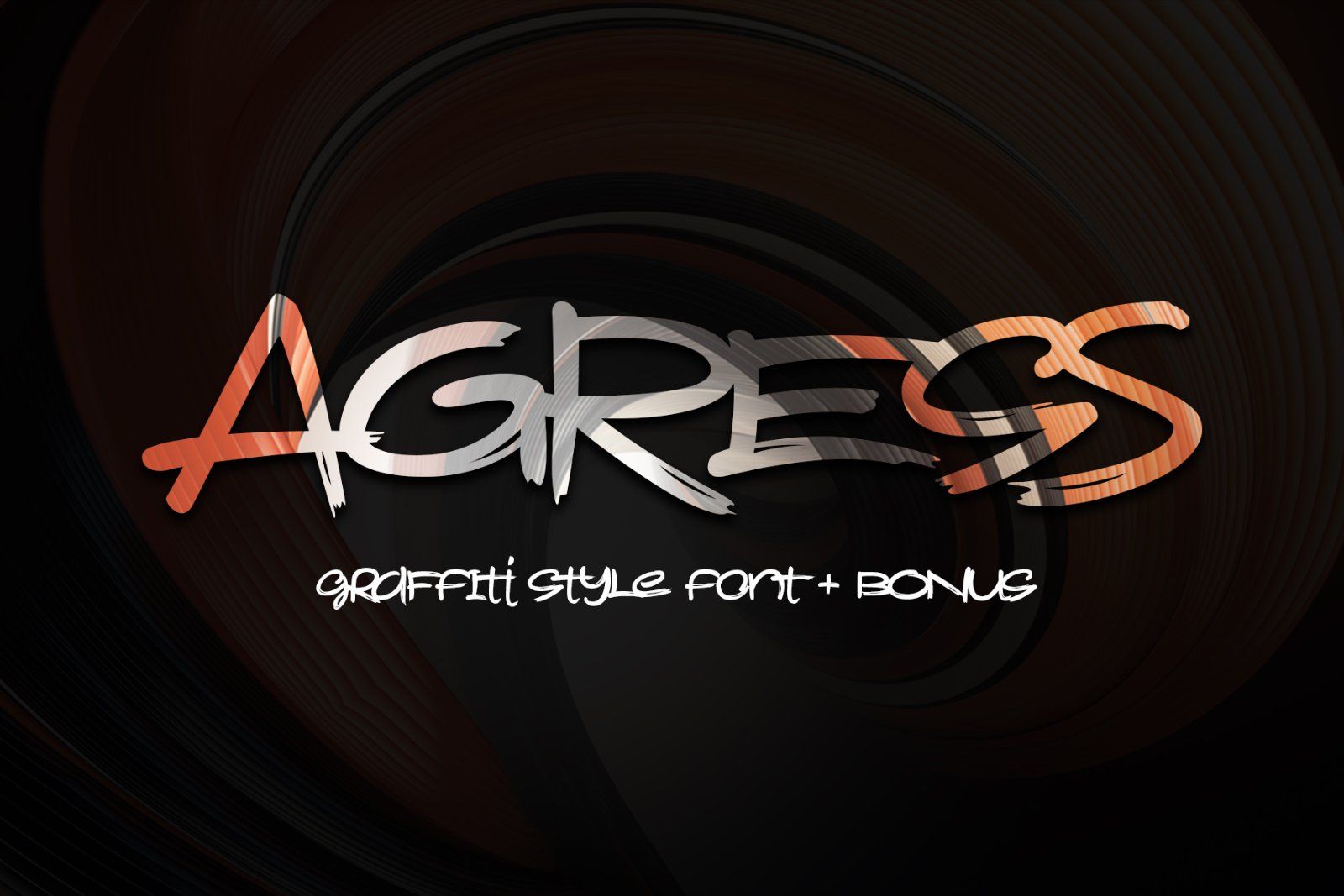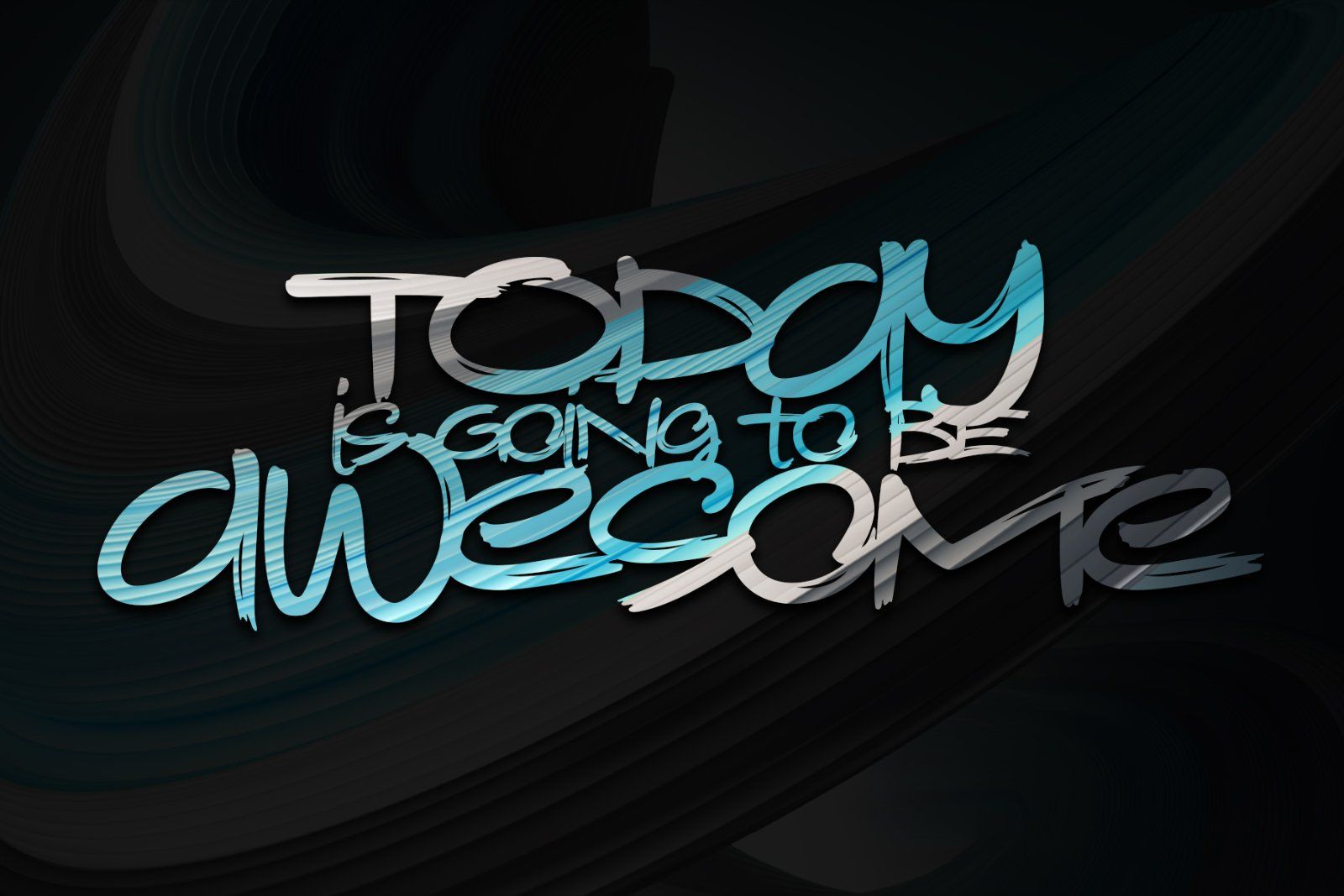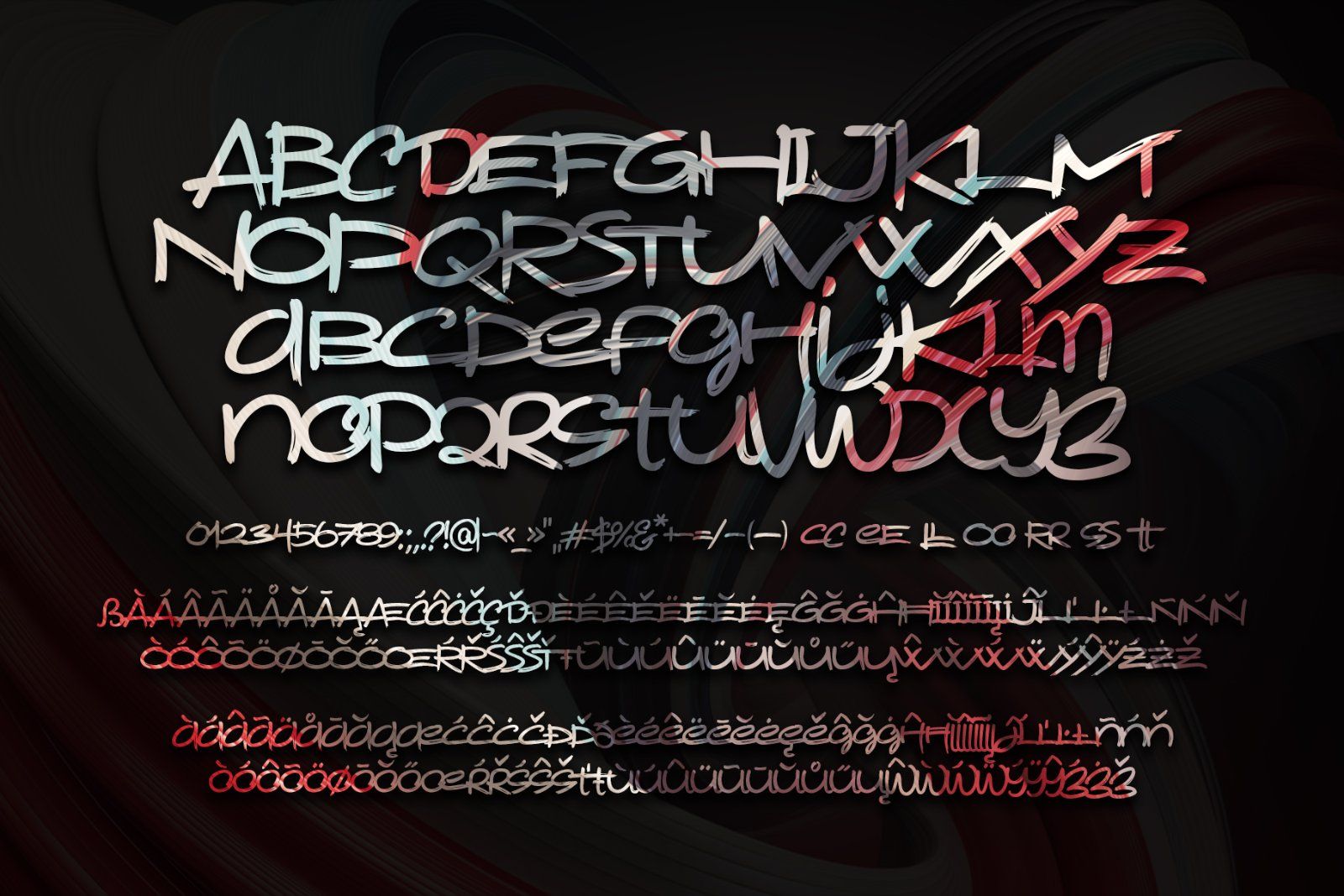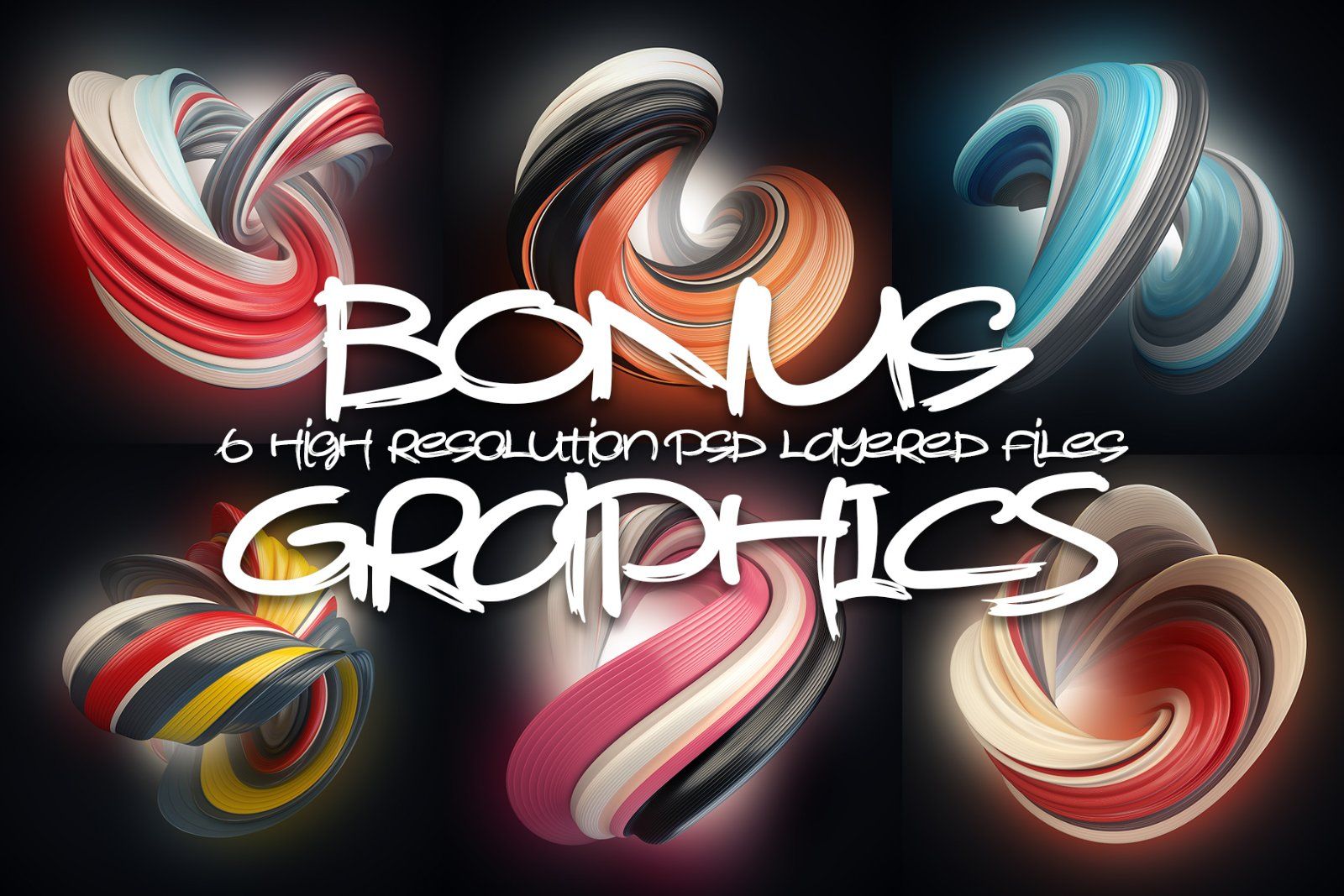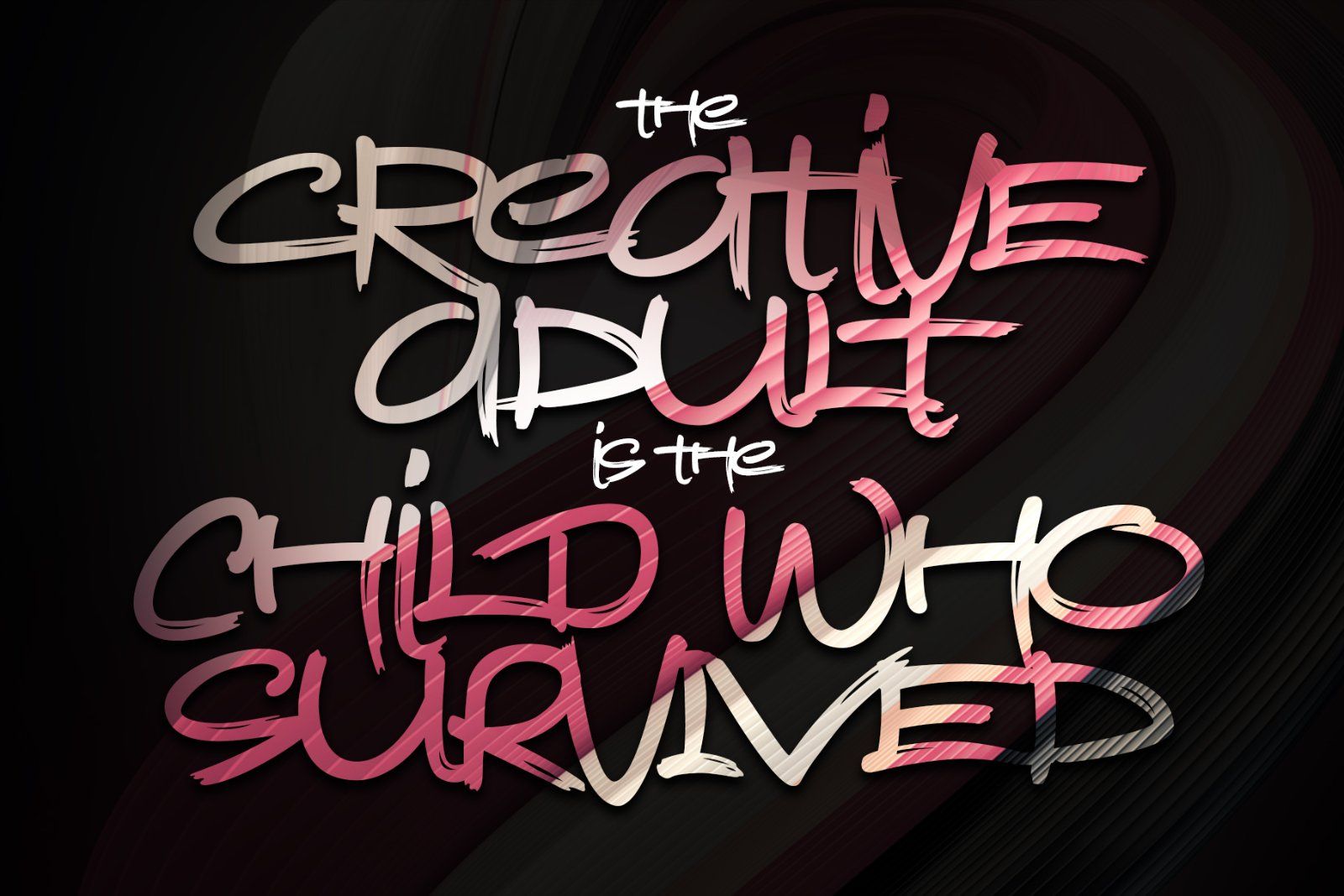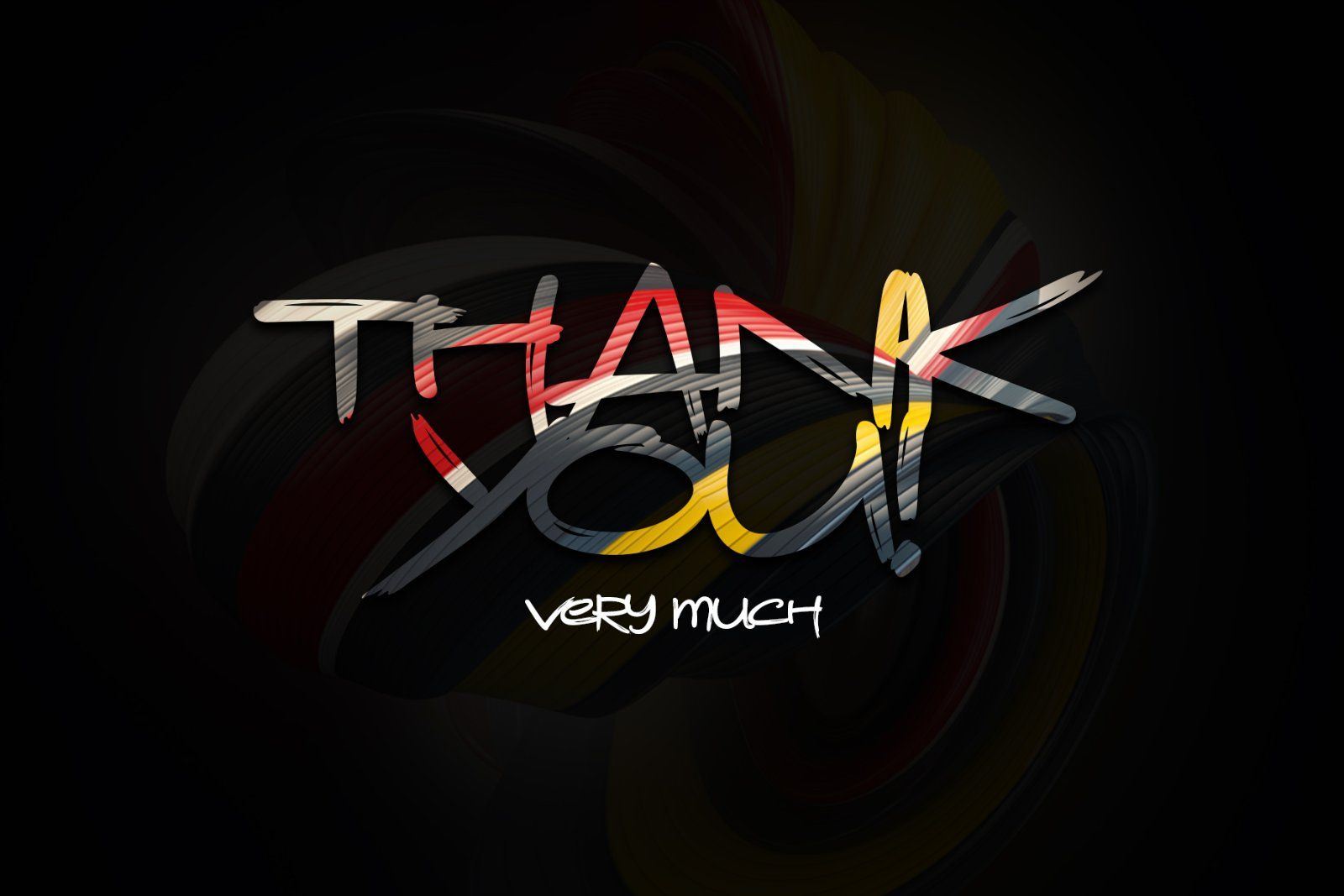
Hello! Presenting a graffiti style font with multilingual support. It also includes a bonus graphics — 6 high resolution abstract images 6000x6000px in layered PSD format (JPG files are available too)